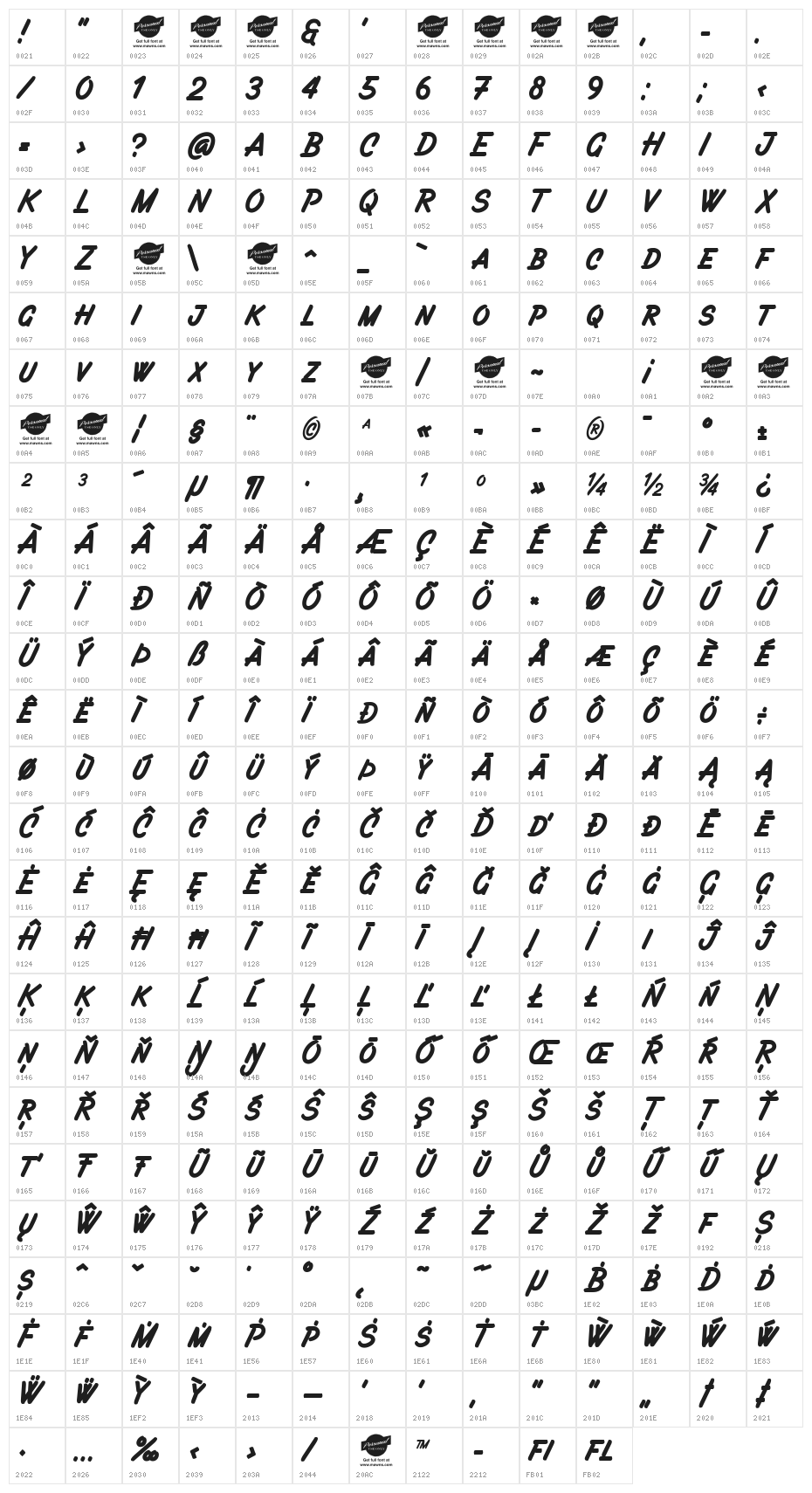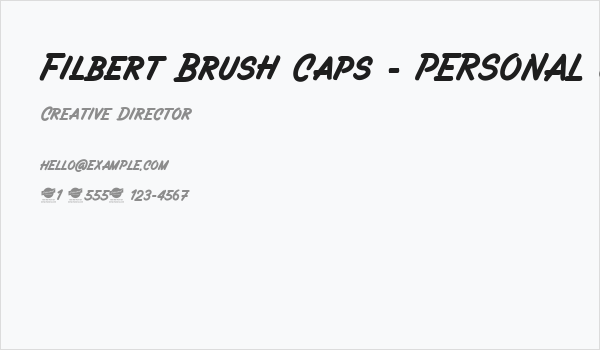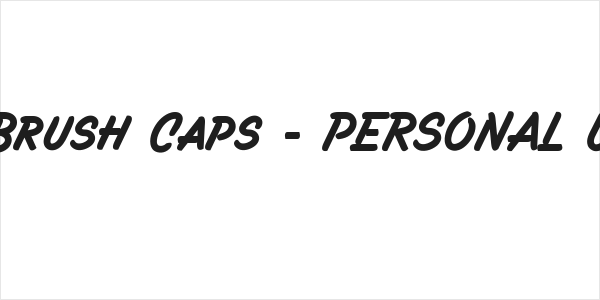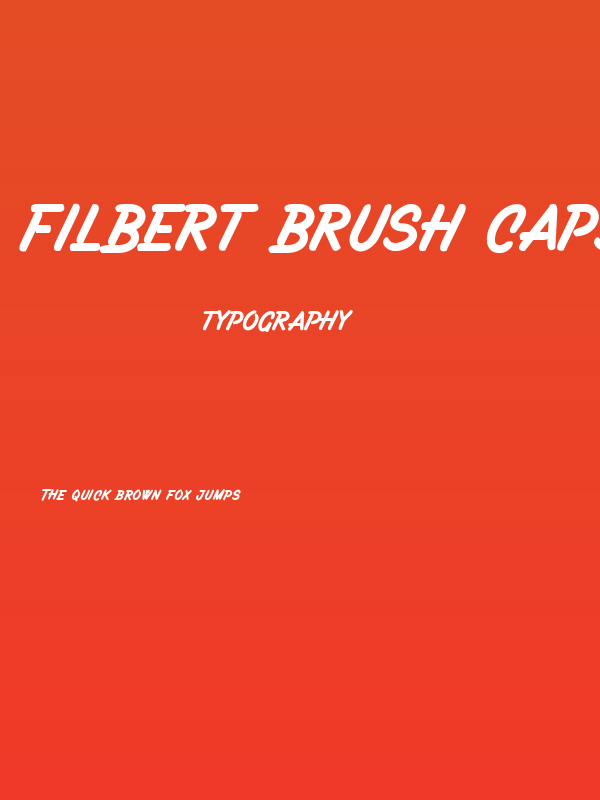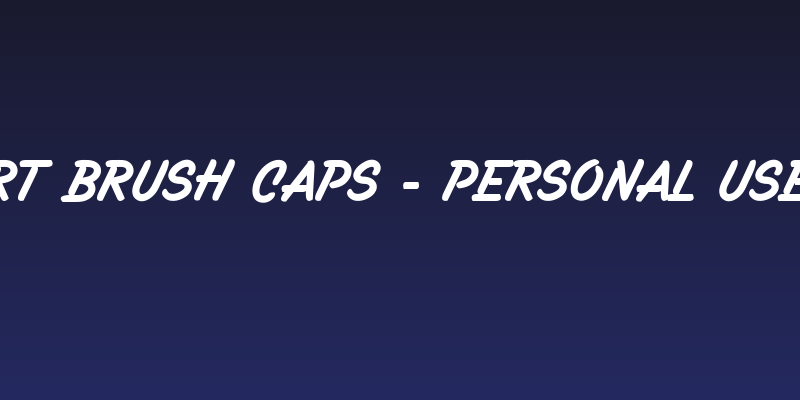
Filbert Brush Caps - PERSONAL USE ONLY Font
Filbert Brush Caps - PERSONAL USE ONLY Description
This font exhibits a bold, brush-like style with a dynamic and energetic appearance. The characters are crafted with a sense of fluidity and movement, reminiscent of hand-painted signage. The uppercase letters are prominent and assertive, while the lowercase letters maintain a consistent flow. The numbers are equally bold, ensuring visibility and impact. Special characters are designed to match the overall aesthetic, providing a cohesive look. The font's thick strokes and rounded edges contribute to its friendly and approachable feel, making it suitable for creative and informal applications.
| Proposed Projects | Ideal for posters, branding, packaging, and any project requiring a lively and artistic touch. |